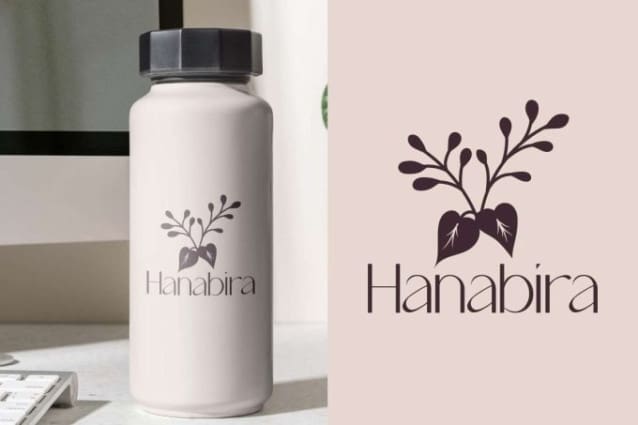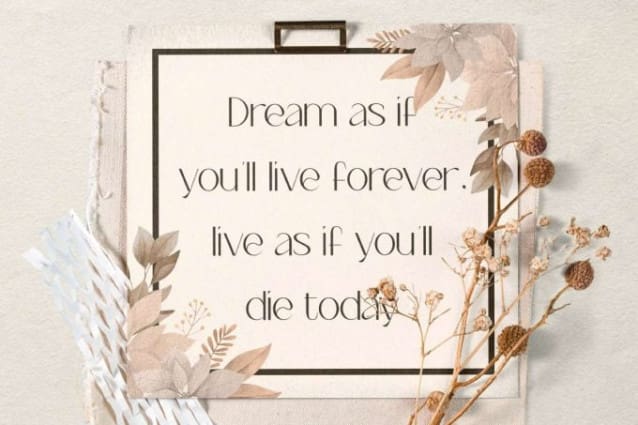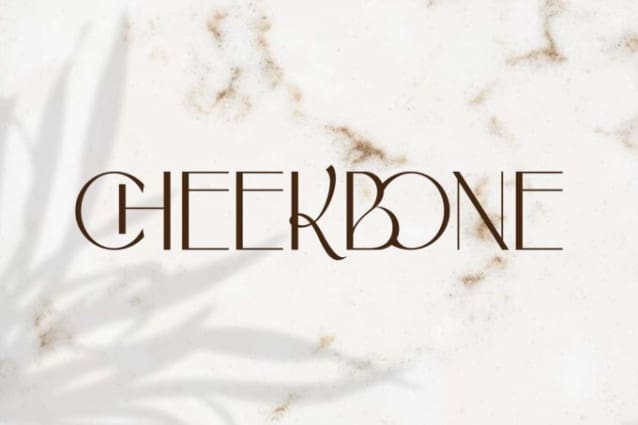
Cheekbone Font
Cheekbone Font is an elegant sans serif display font with stunning ligature and glyphs designs. The thin lines of this font exude an expensive aura that dazzles the eyes of those who see it. It will be suitable for many industries, such as spa and salon, event organizer, restaurant, fashion, furniture, handicrafts, interior design, accessories and jewelry, photography, printing, publishing, etc.
Cheekbone Font includes full set of Uppercase and Lowercase Basic Characters, Numerals and Punctuation, and Ligature characters. This font can be combined with other font types or used alone. It would be good for many ideas, such as signage, brand logo, brochure, business card, invitation, label, menu, poster, product packaging, quote, screen printing, website, and more!